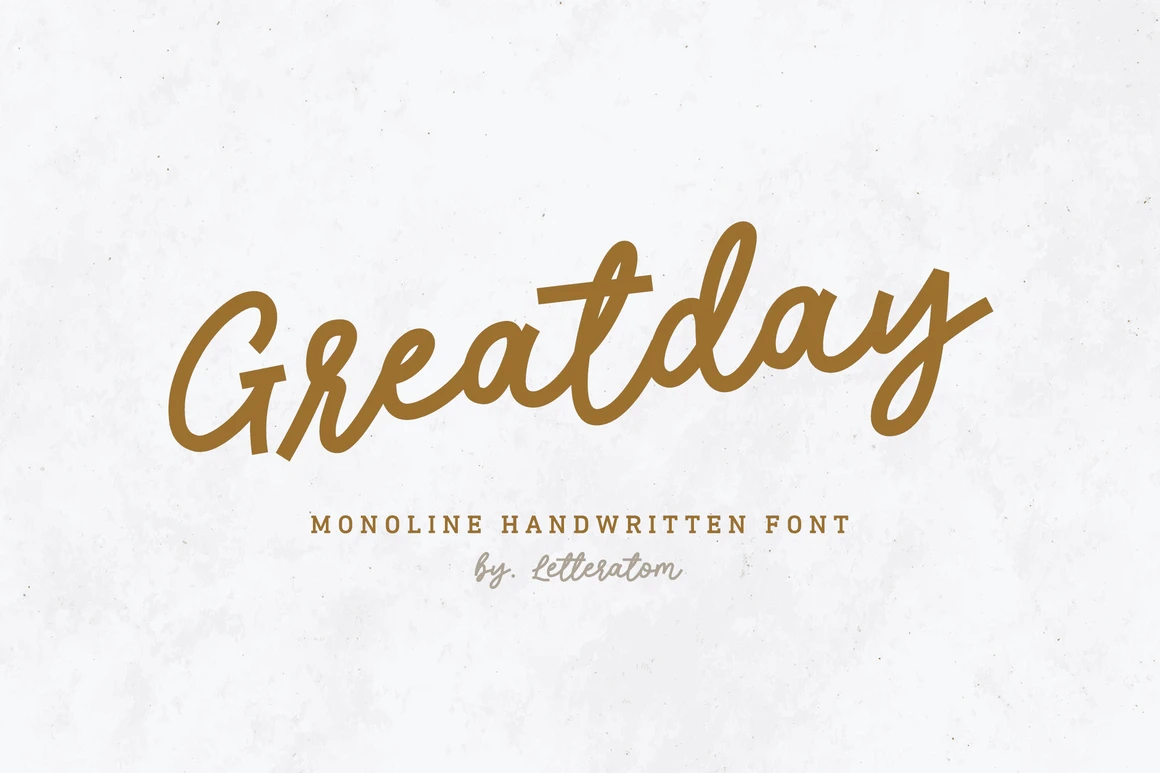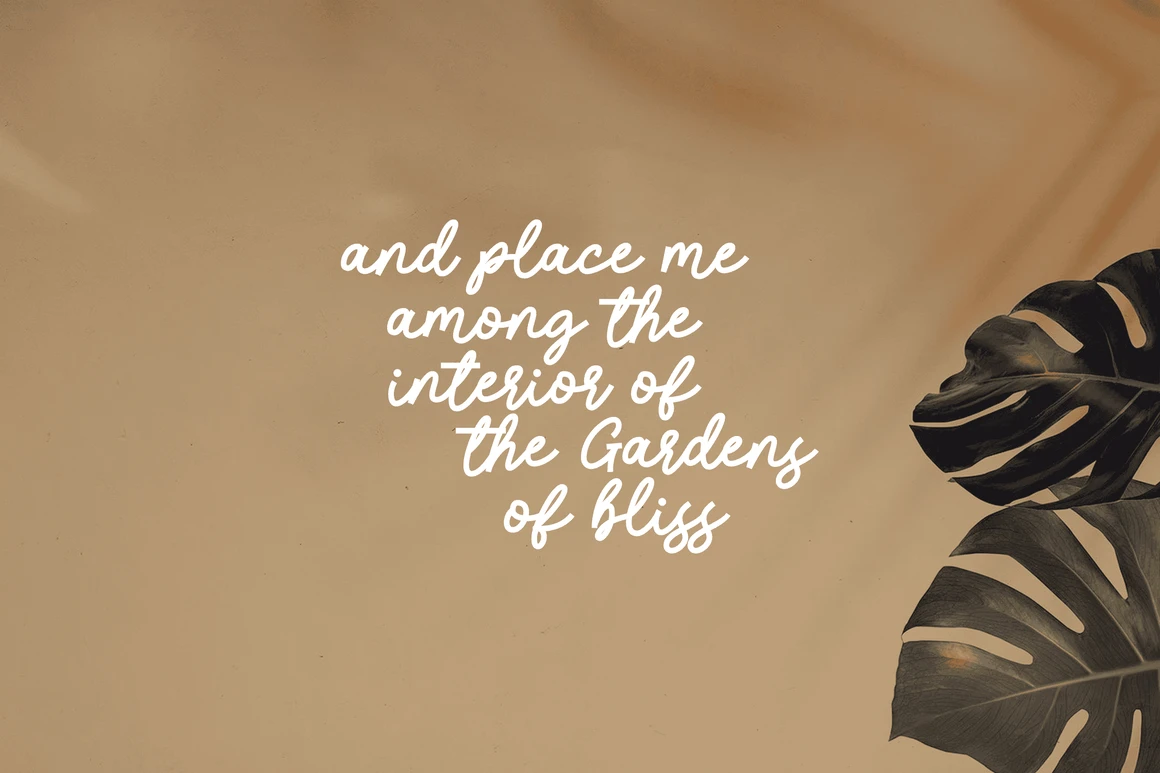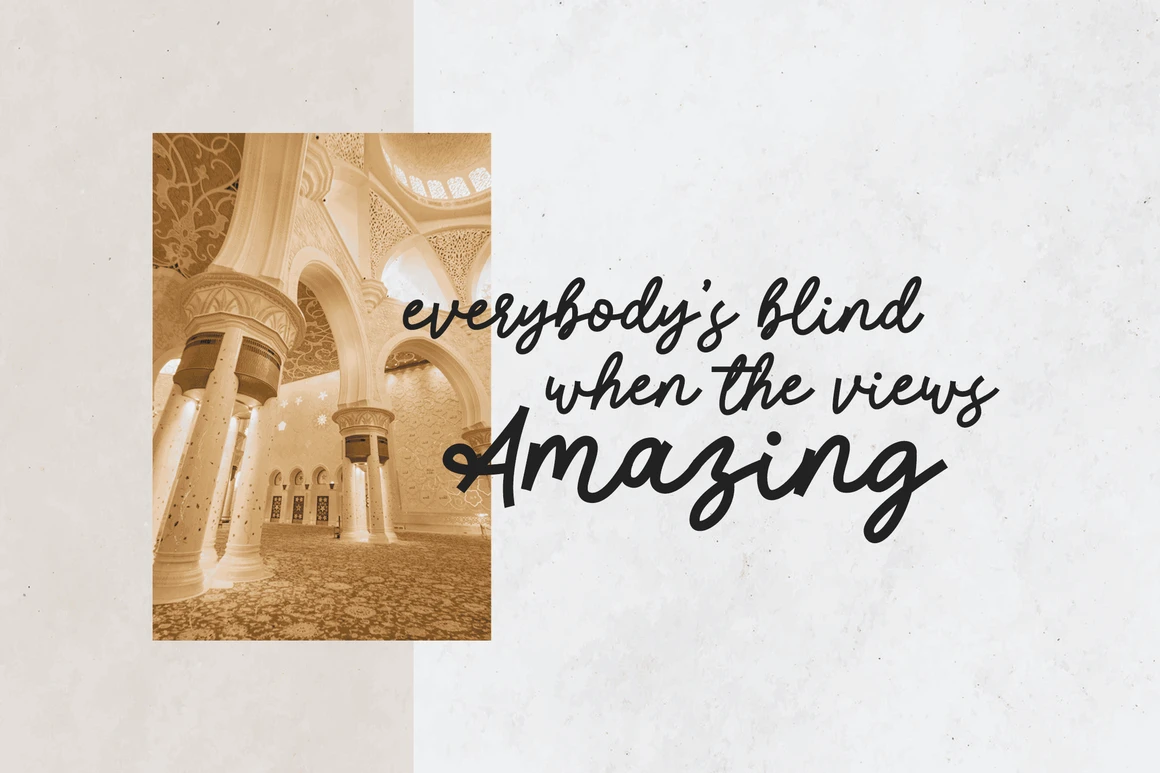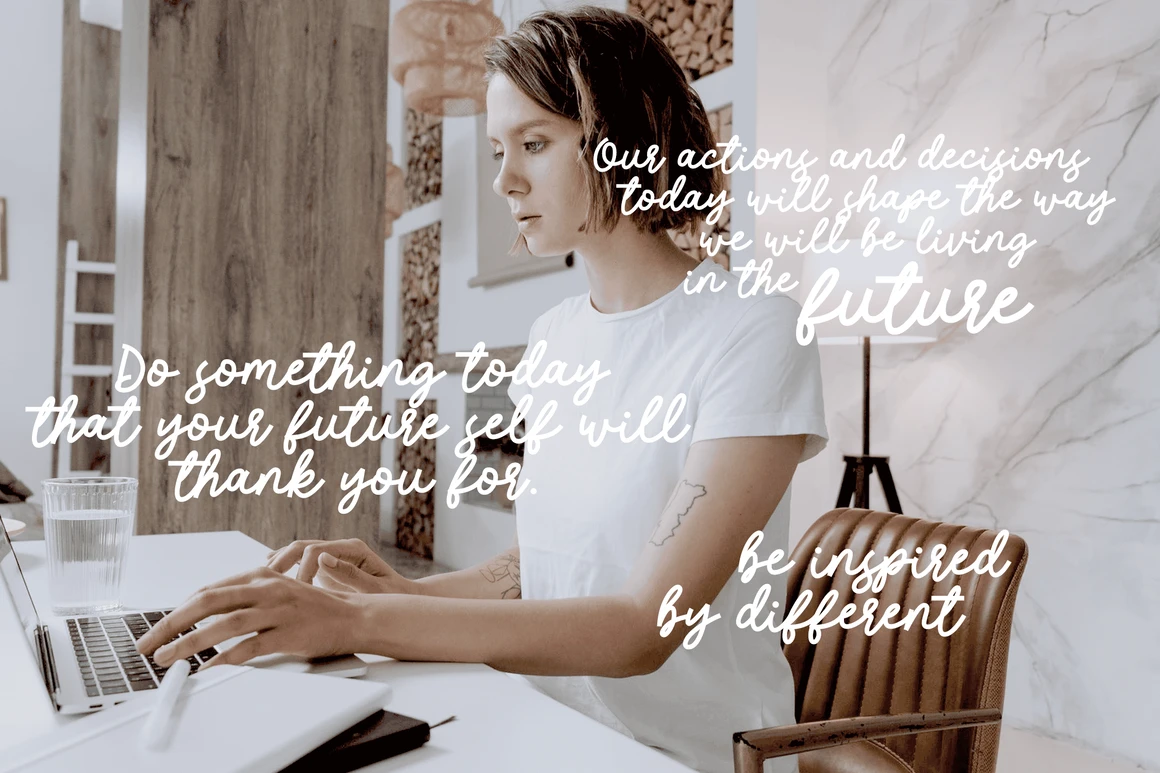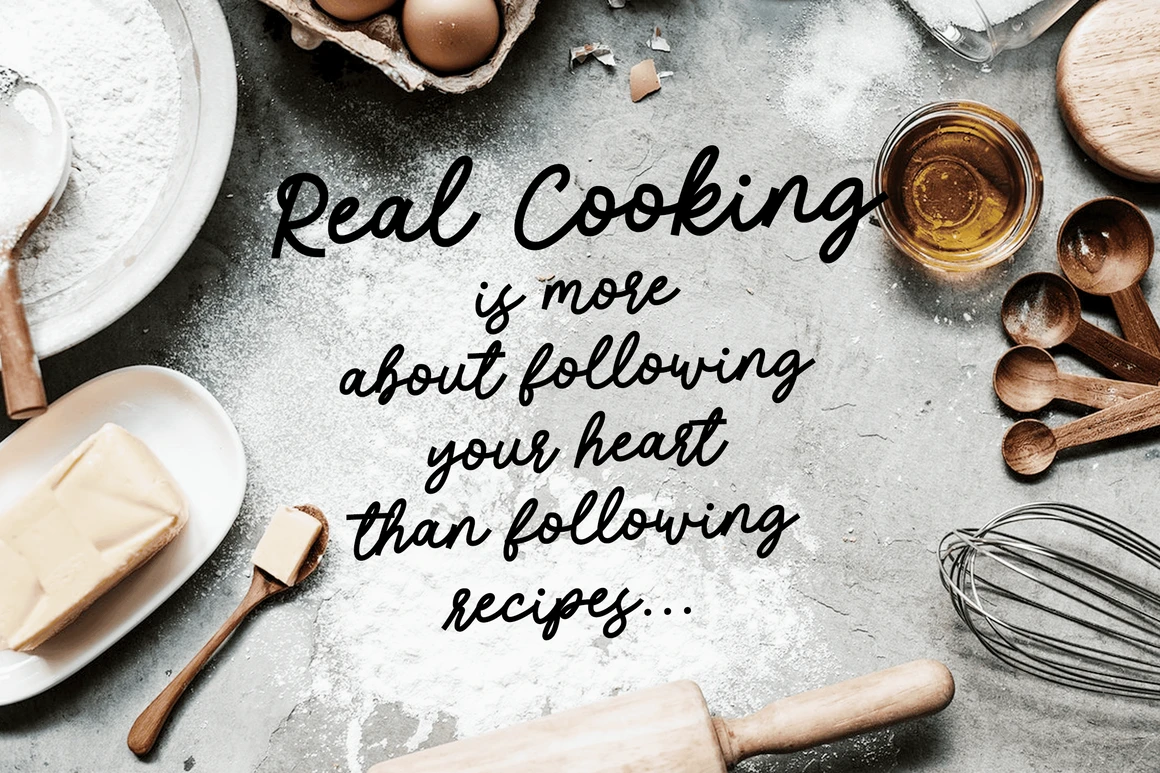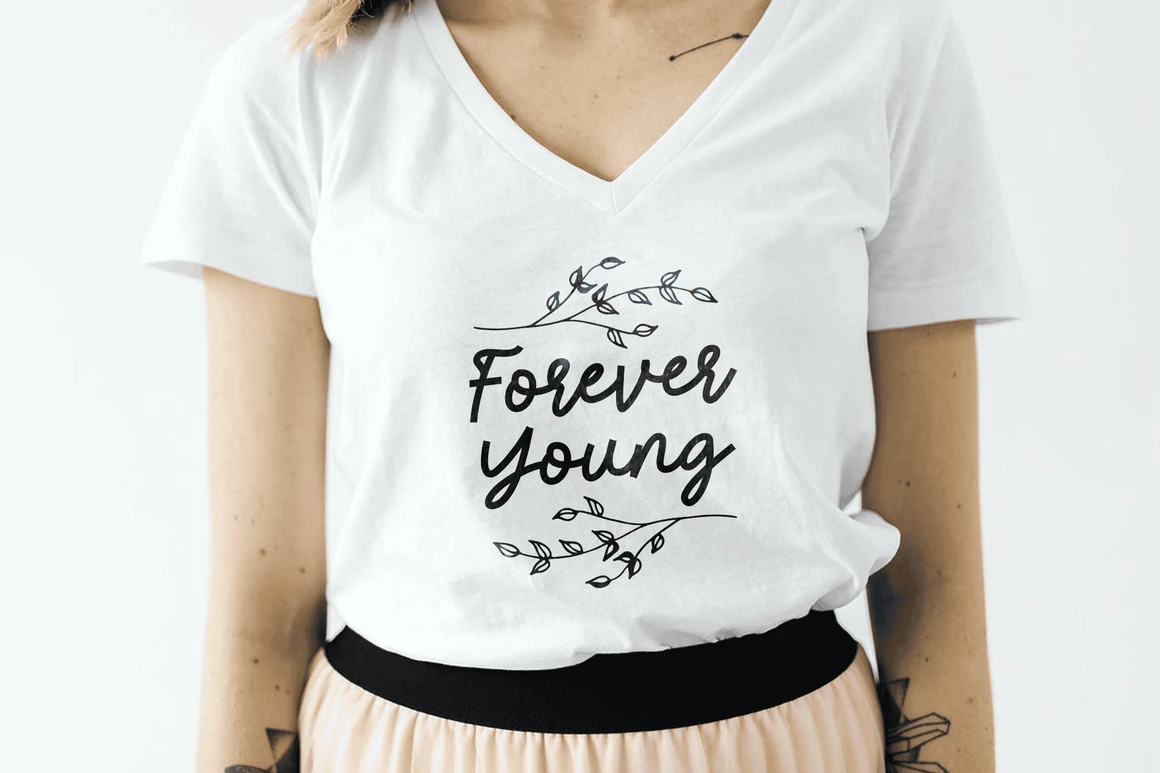
Greatday is a cute and natural handwritten font. It has a friendly touch and it will match a wide range of designs. Add it confidently to your projects and you won’t regret it.